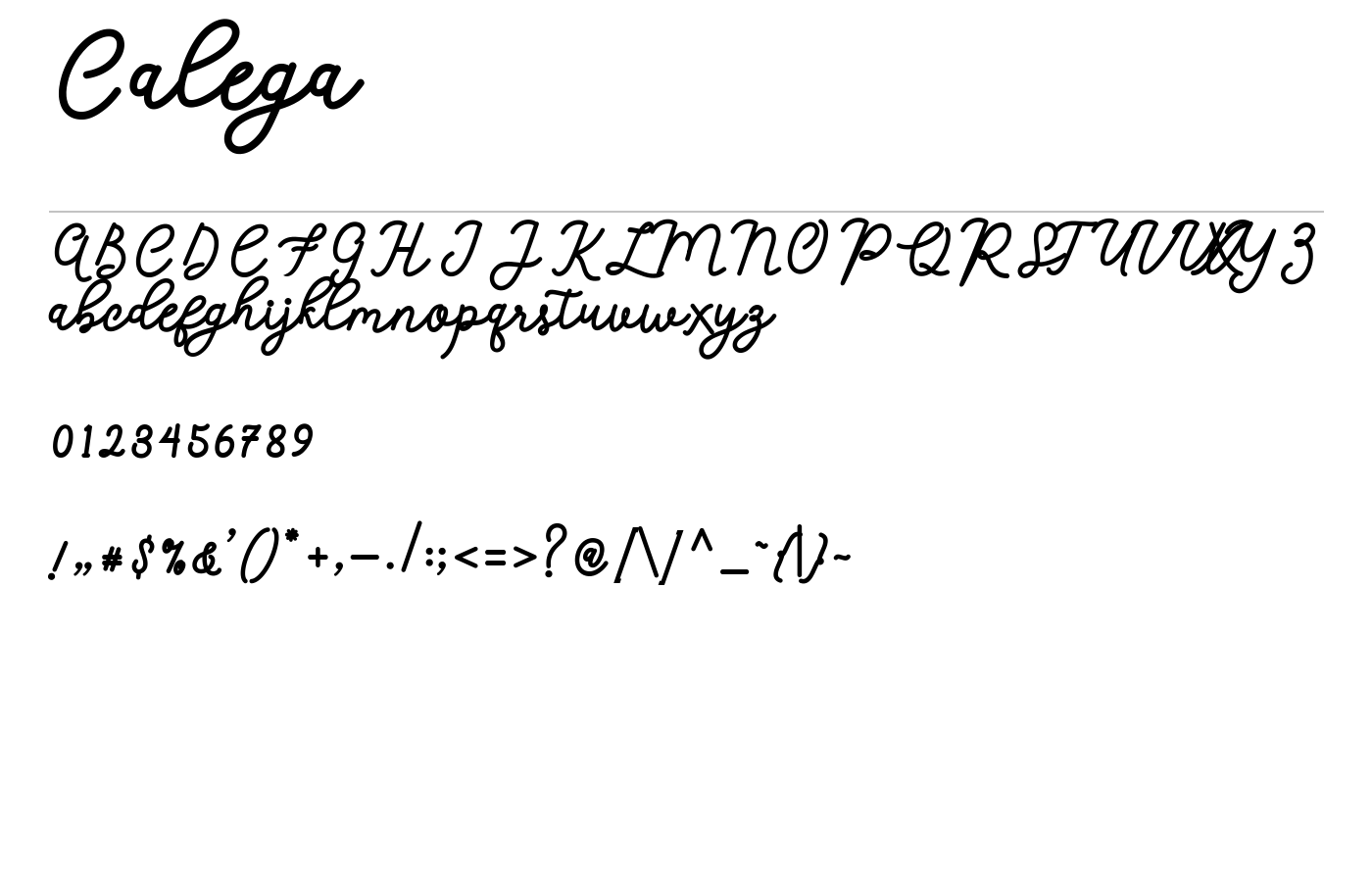
Calega is a delicate, script-style font that features smooth, flowing curves and a consistent weight, giving it an elegant yet approachable feel. Its slender letterforms and casual handwritten look make it ideal for personal branding, invitations, and creative projects that seek a warm, friendly touch. This font works best in headlines or logos where its charming character can shine.
Calega Font
About Calega Font